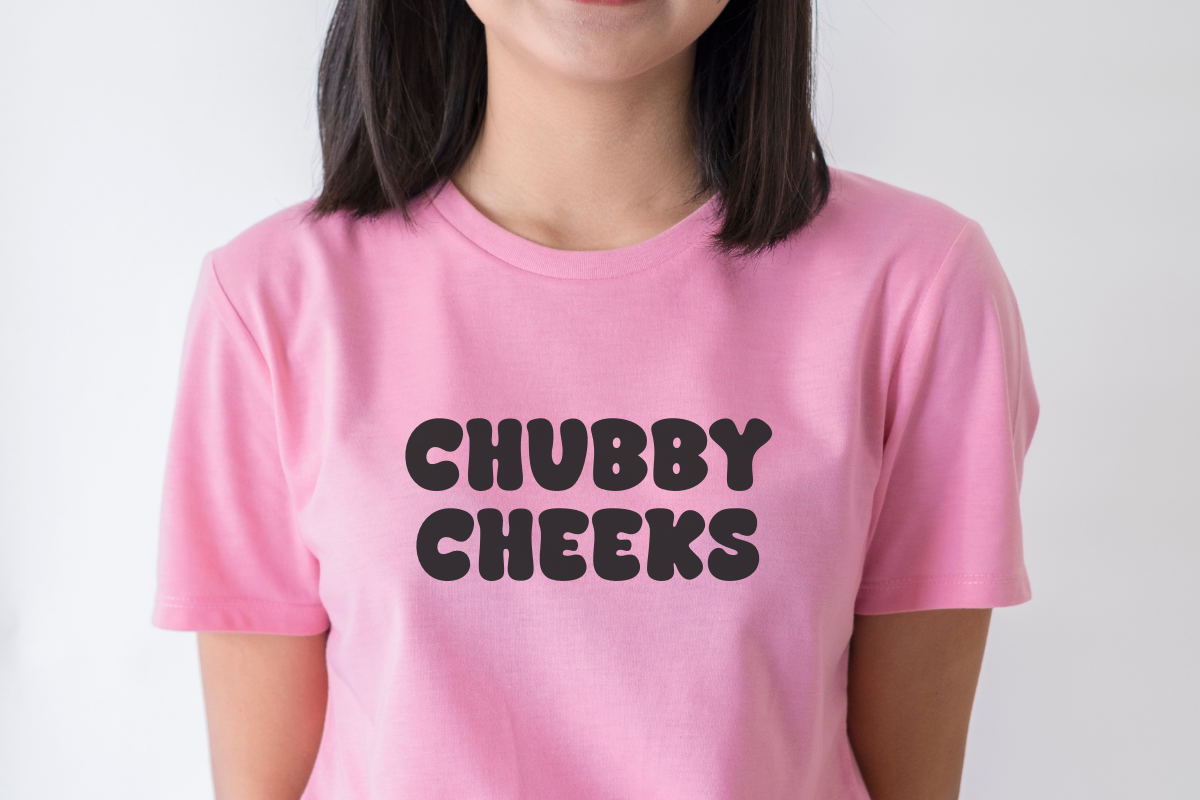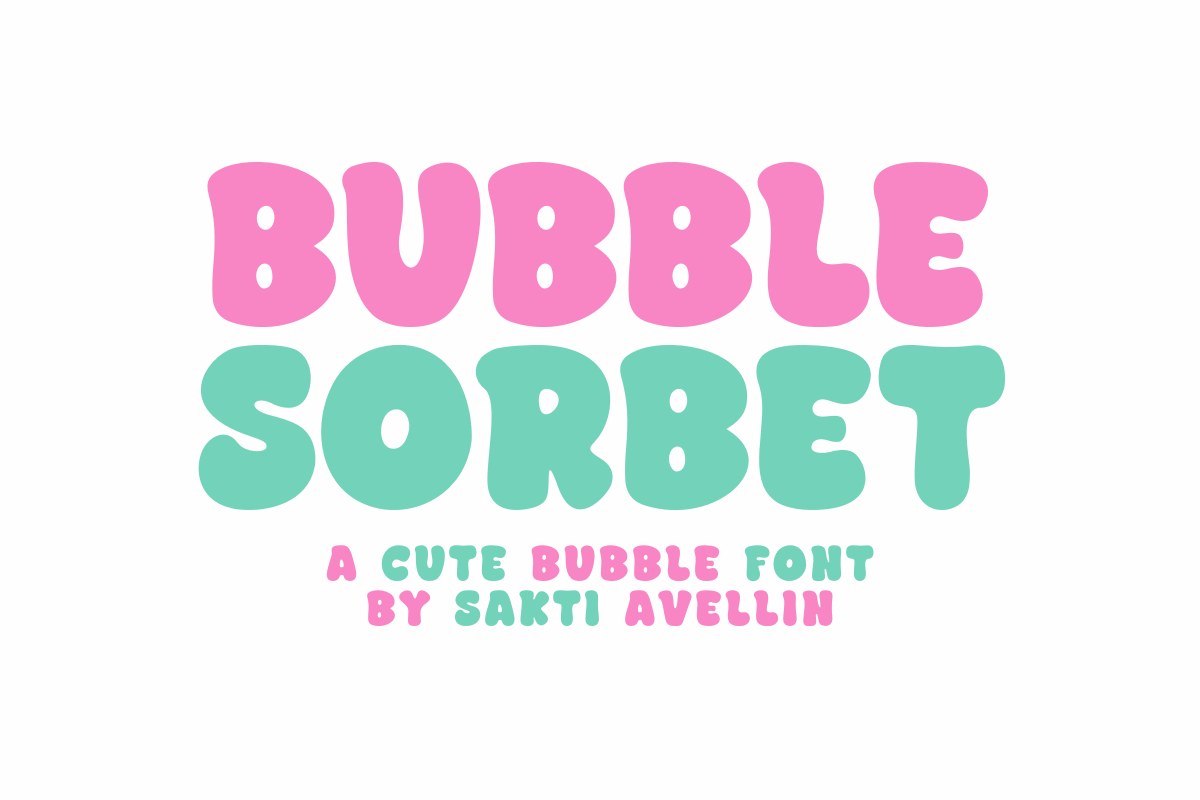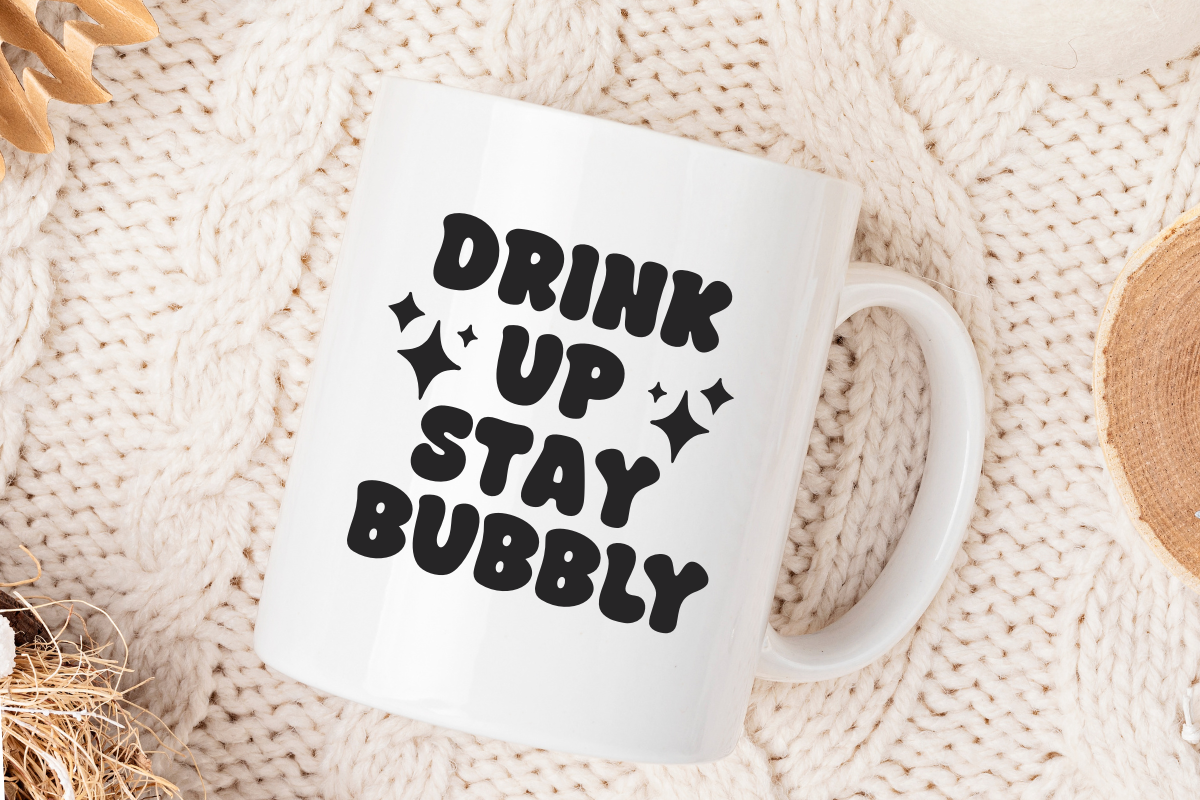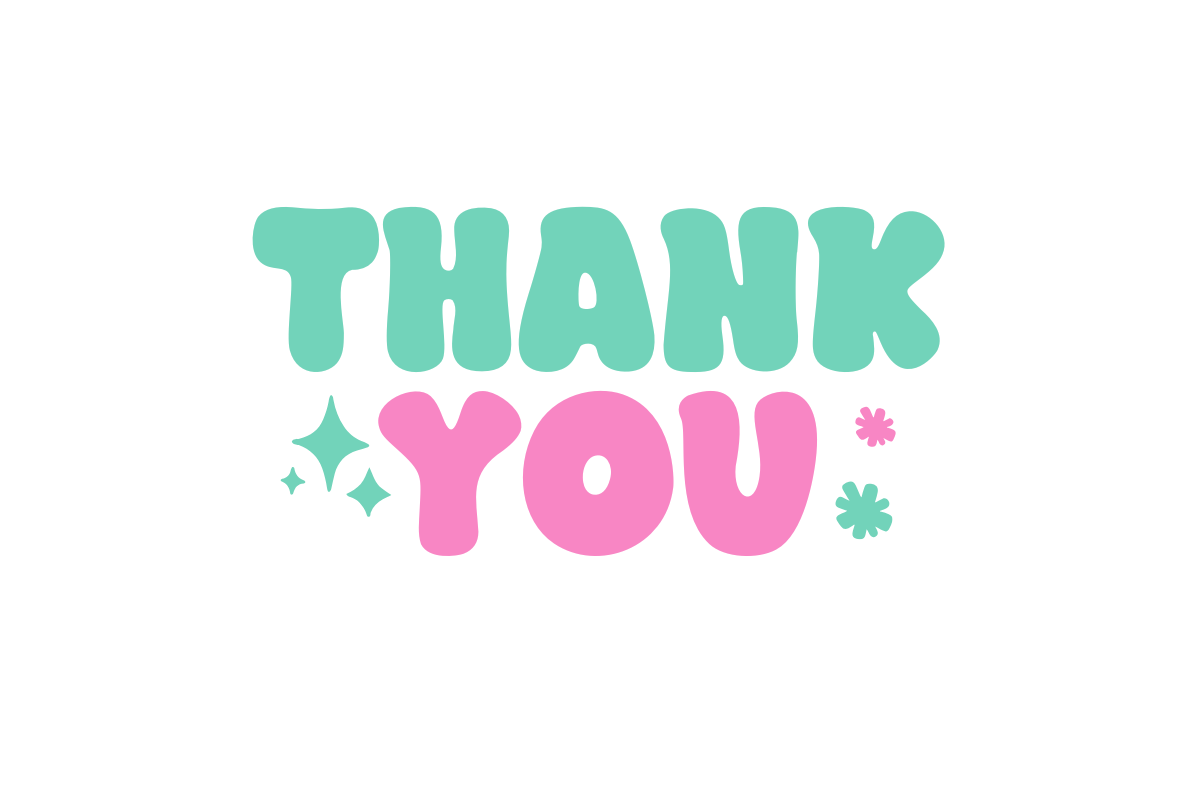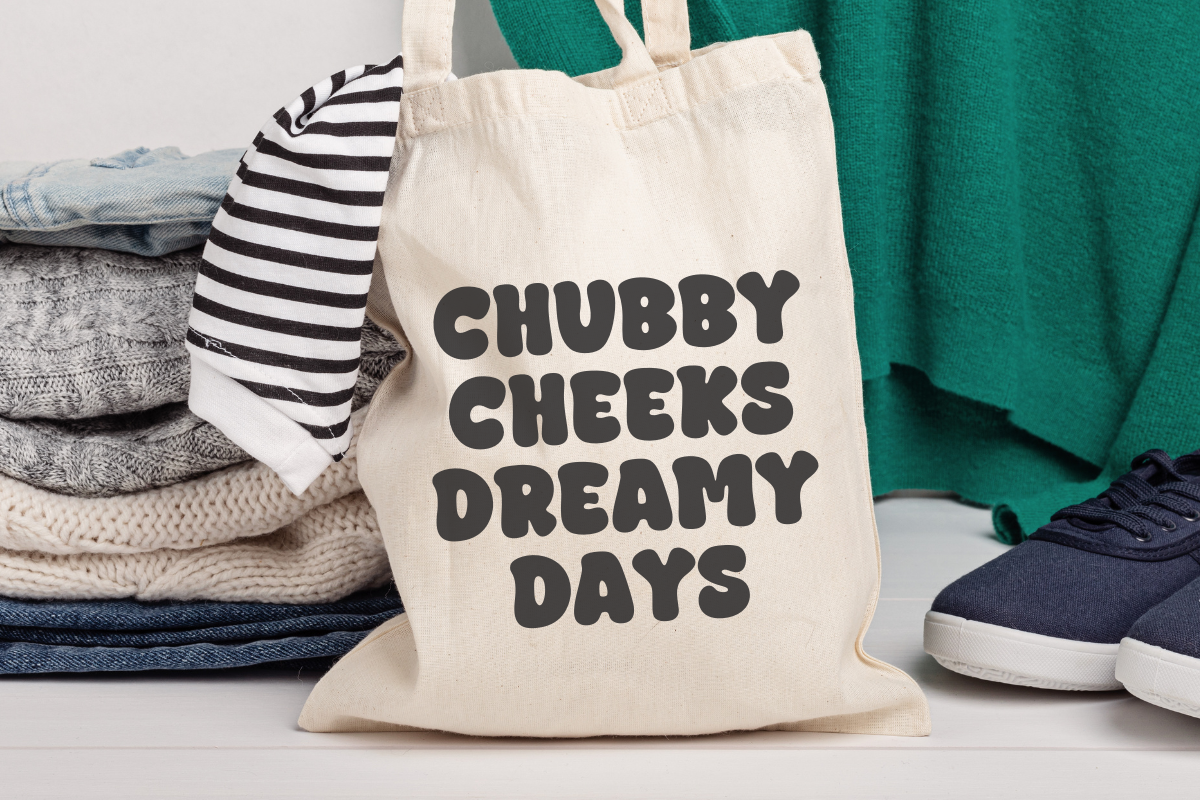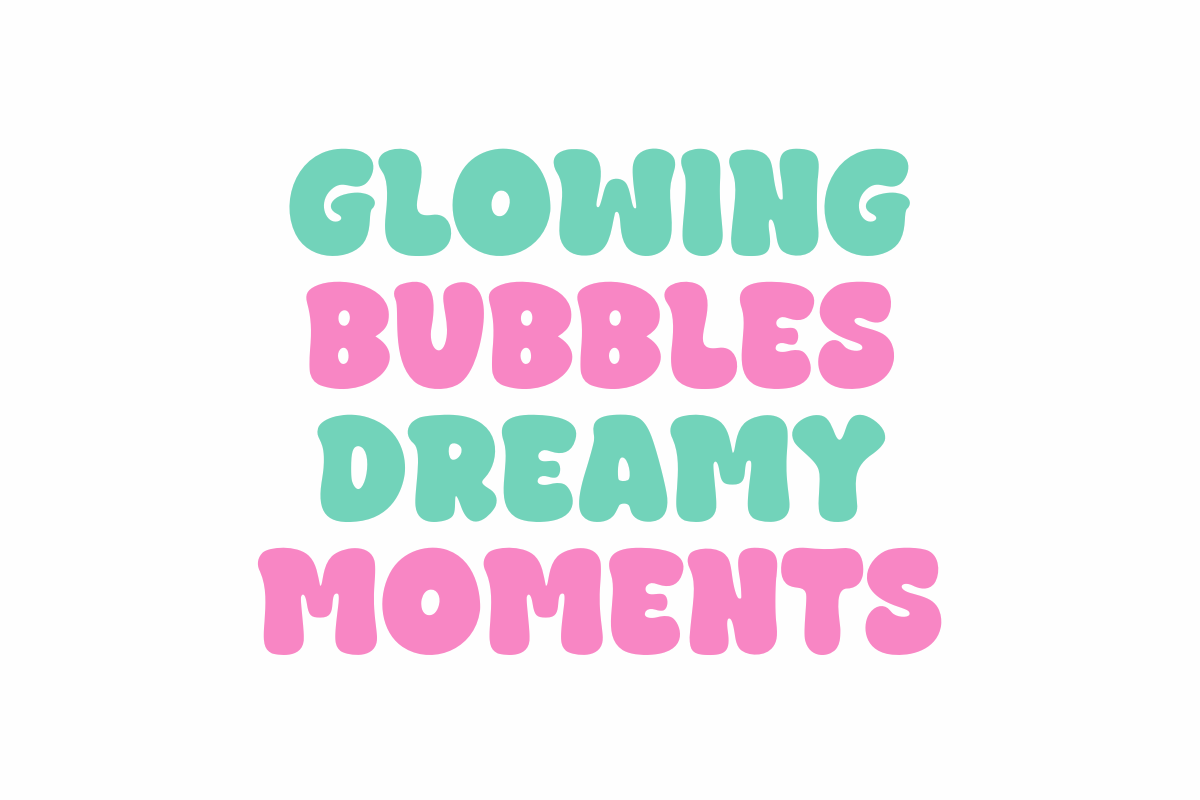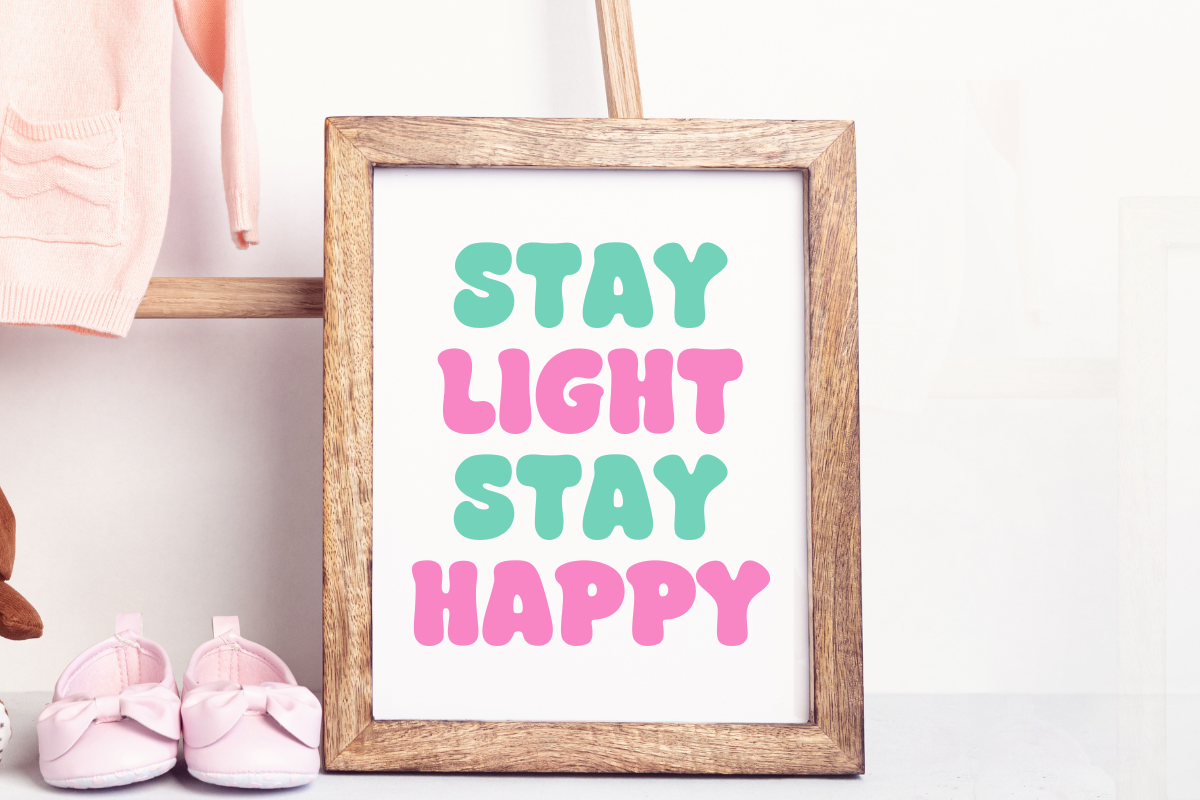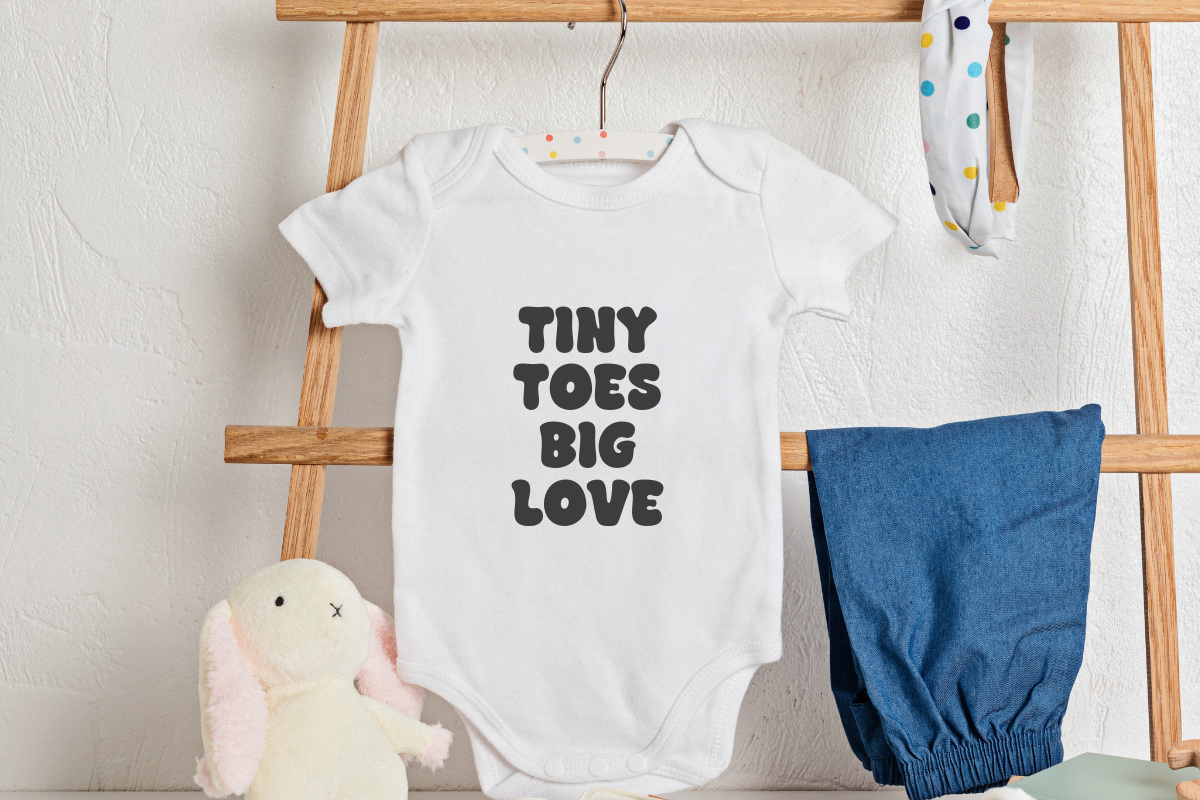
Bubble Sorbet - Cute Display Font
Bubble Sorbet is a refreshingly sweet, bold, and incredibly cute bubble font that radiates playful energy and a modern aesthetic. This chunky display font features exaggerated, rounded letterforms, creating a soft, cheerful, and whimsical look. It is essential for kids' branding, colorful party invitations, fun feminine logos, vibrant t-shirt designs, and engaging social media graphics. Its distinctive, heavy style ensures it is a powerful display typeface for headlines and product packaging, appealing to a trendy audience that loves bold, 70s-inspired, and adorable design. Get a taste of pure fun with this delightful retro sweet font!